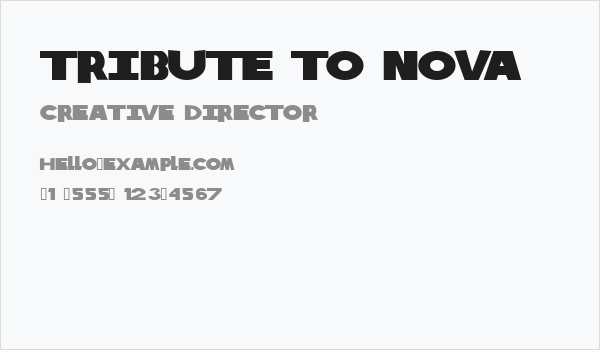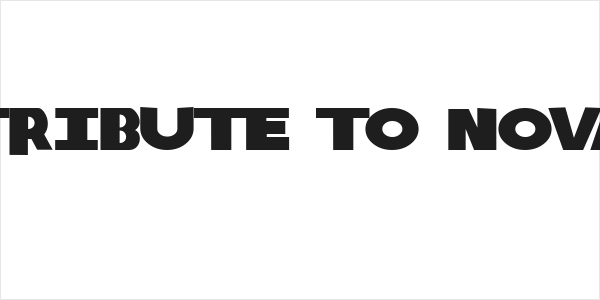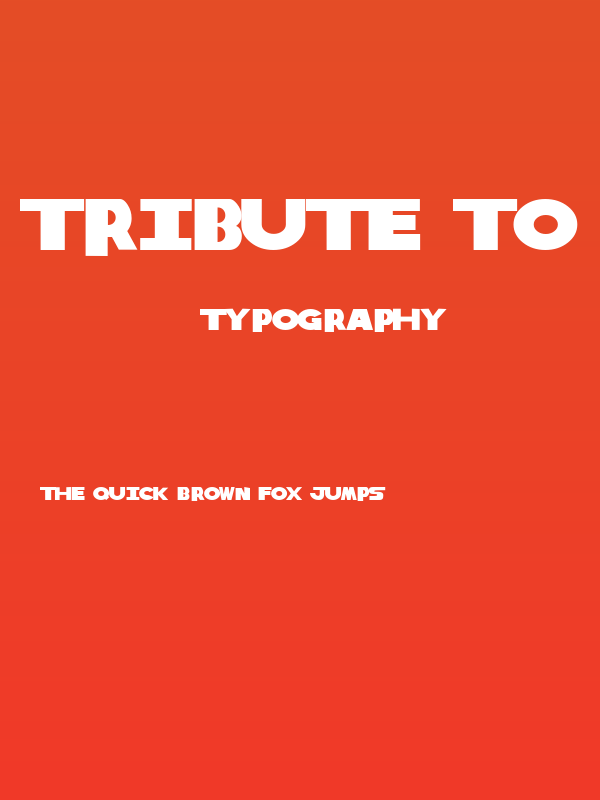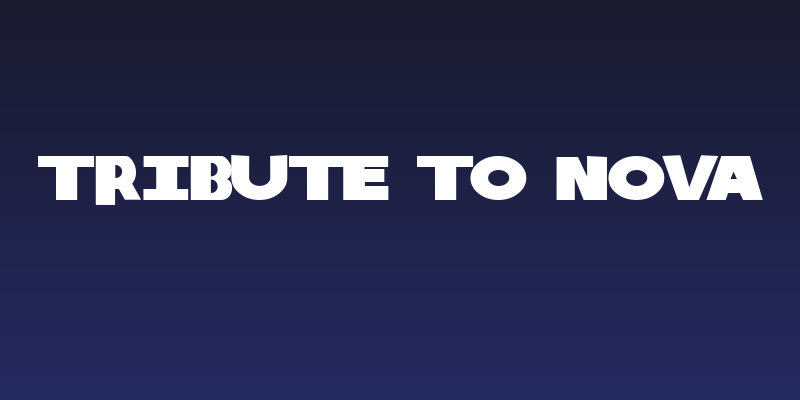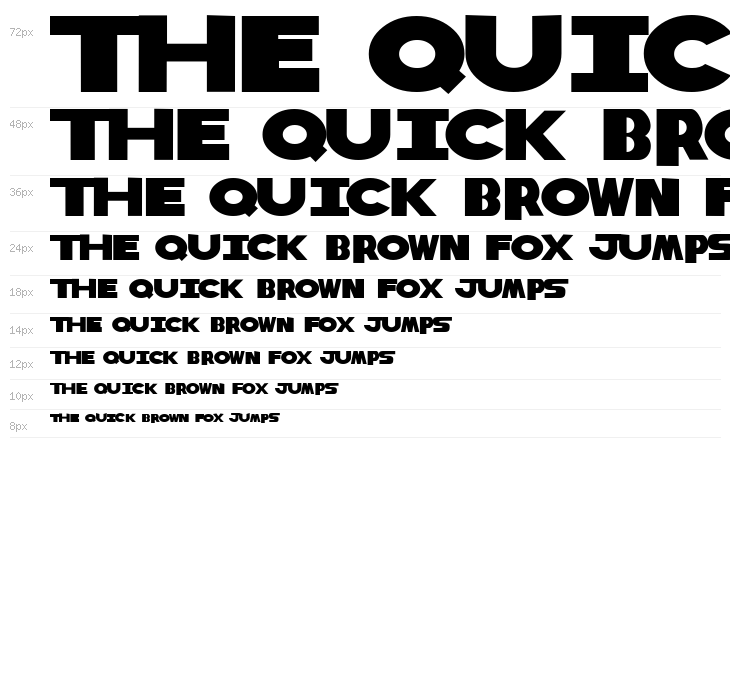
Tribute to Nova Font
Tribute to Nova Description
This font features bold, geometric characters with a strong presence. The uppercase letters are particularly striking, with a blocky, angular design that conveys a sense of strength and modernity. The lowercase letters maintain this bold aesthetic, ensuring consistency across the typeface. Numbers are equally robust, with a uniform width that complements the overall style. Special characters are designed to match the boldness of the alphabet, making them suitable for attention-grabbing text. The font's design is ideal for projects that require a modern and impactful look.
| Proposed Projects | Ideal for branding, headlines, posters, and any design that requires a bold statement. |